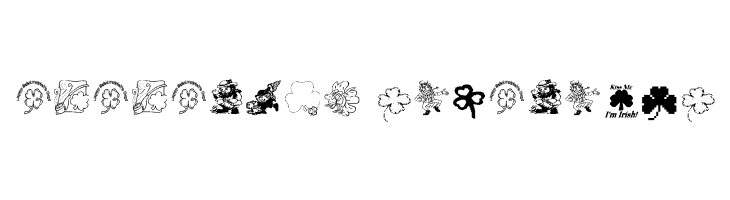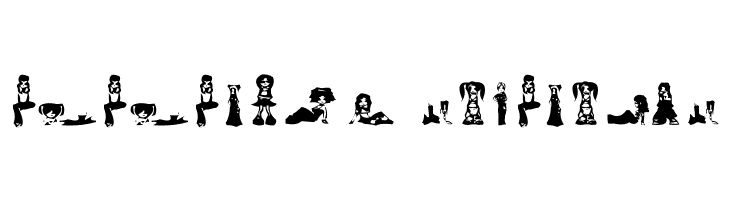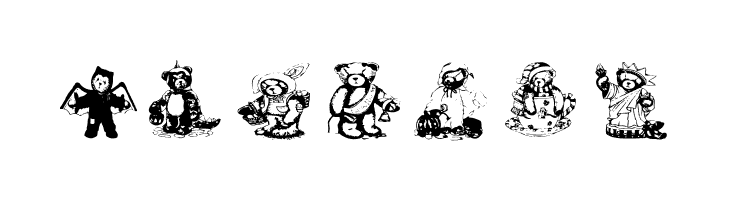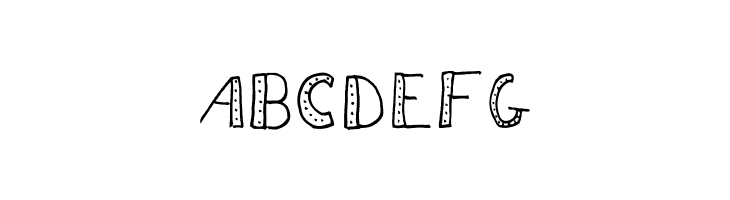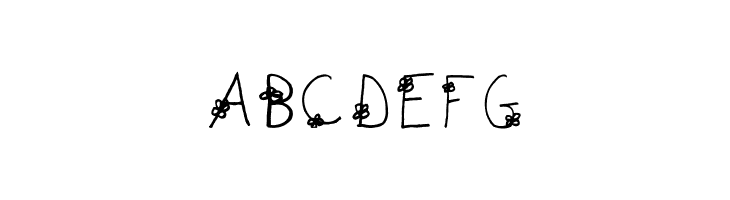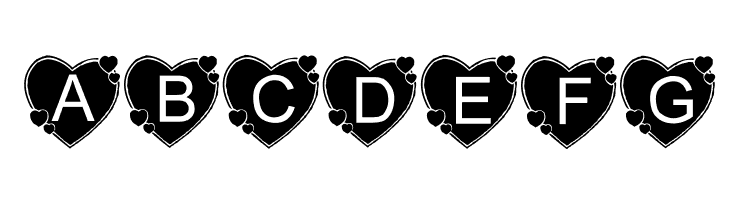
A playful, hand-drawn font with bold, sketchy characters.
A decorative font with characters encased in heart shapes, ideal for romantic themes.
Whimsical cat illustrations replace standard alphanumeric characters.
A whimsical, floral-adorned font with a playful and artistic style.
A decorative font featuring unique doll figures for each character.
A playful, hand-drawn font with dotted embellishments.
Whimsical dingbat font with fairy illustrations.
A playful, heart-adorned font with a hand-drawn style.
Holiday-themed bear illustrations as font glyphs.
St. Patrick's Day-themed dingbat font with festive illustrations.